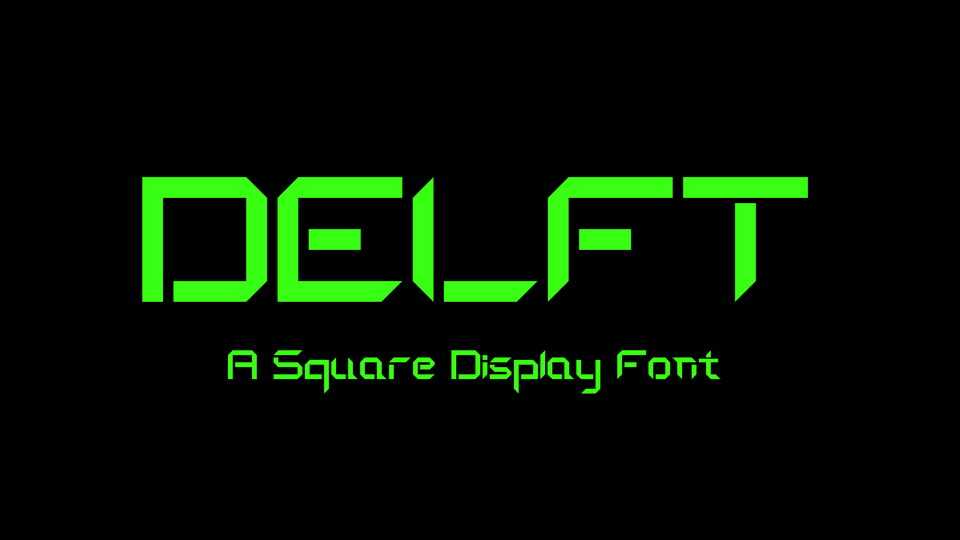
Download Delft font, a square sans serif display typeface. It is bold and sharp, which makes it perfect for gaming, merch, and logo design. Delft typeface would further enhance the aesthetical aspect of your work.
Designer: Simran Banani